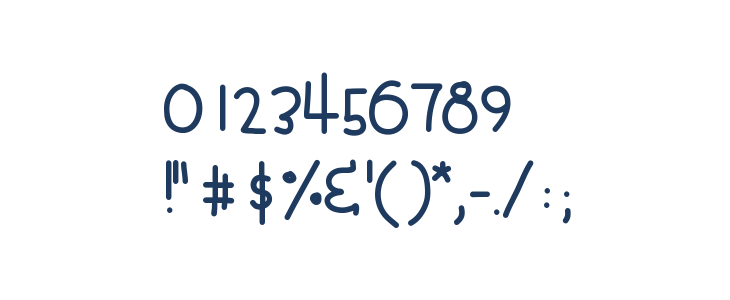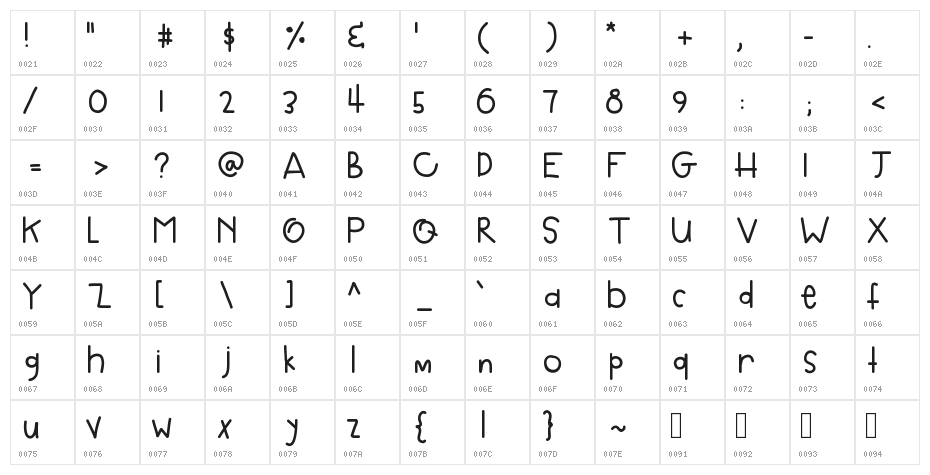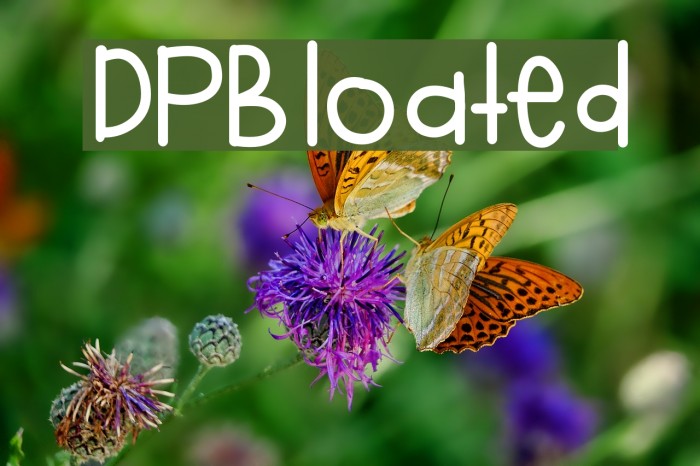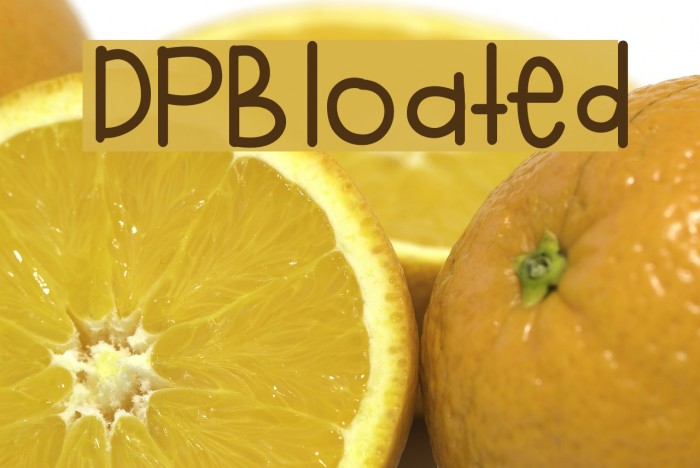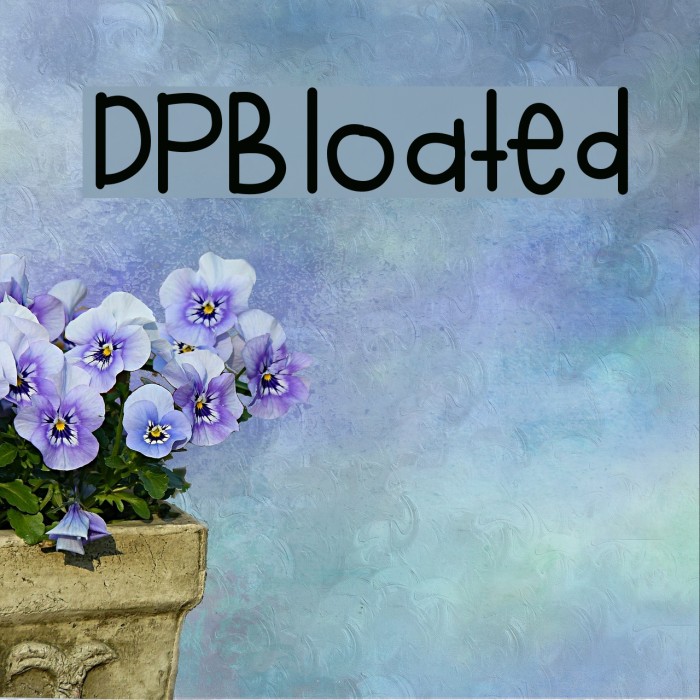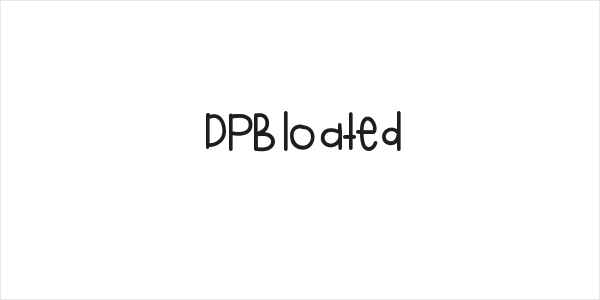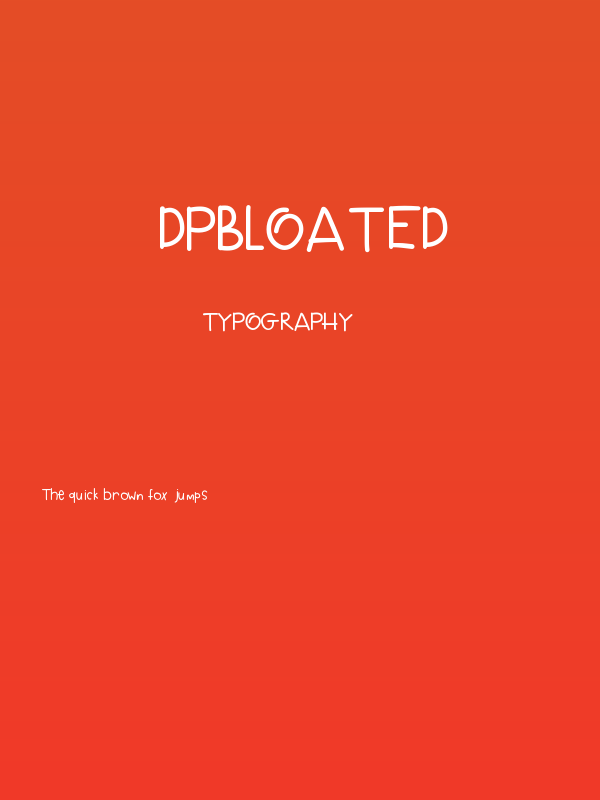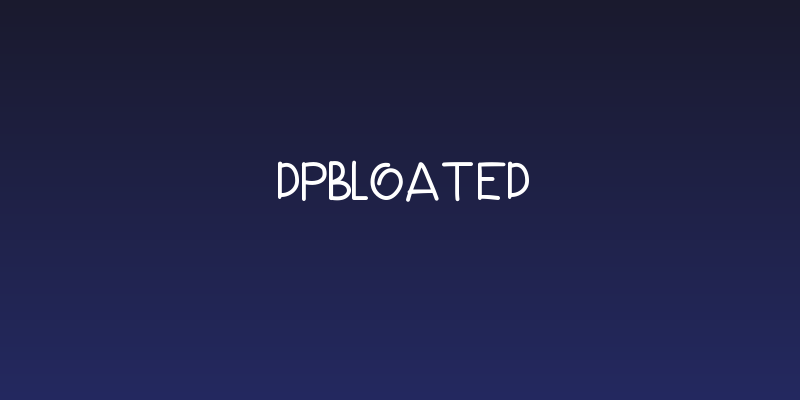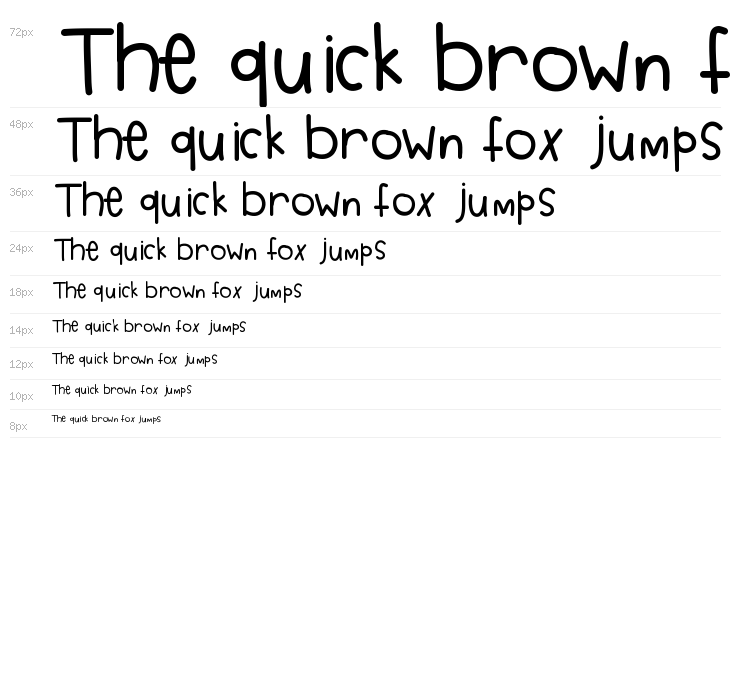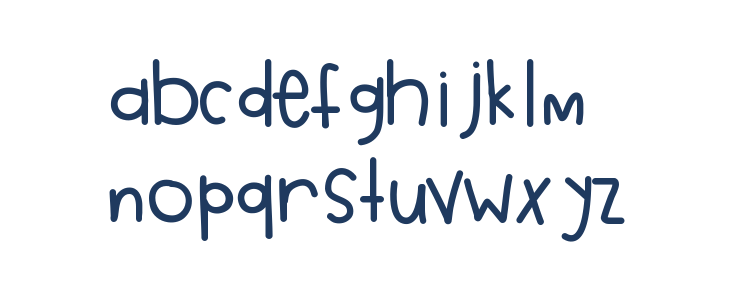
DPBloated Font
DPBloated Description
This playful and whimsical font features rounded, bloated letterforms that convey a sense of fun and informality. Each character exhibits a consistent thickness, with smooth curves and a slightly exaggerated appearance that enhances its friendly and approachable nature. The uppercase and lowercase letters maintain a uniform style, while the numerals and special characters complement the overall aesthetic. The font's design is ideal for projects that require a lighthearted and casual tone, making it suitable for children's books, playful branding, or informal invitations. Its unique style ensures that it stands out, capturing attention while remaining legible.
DPBLOATED UPPERCASE
DPBLOATED LOWERCASE
DPBLOATED OTHER CHARS